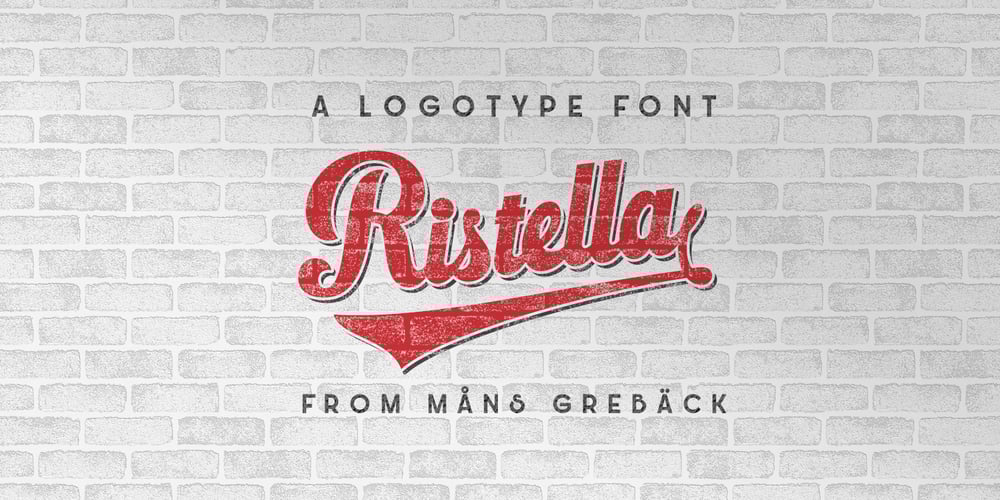
Ristella Font Family was designed by Måns Grebäck and published by Mans Greback. Ristella contains 1 styles and family package options. Ristella – a logotype script font. This high-quality typeface is created by Måns Grebäck. Its style is bold and has large, attention-grabbing uppercase letters. Ristella contains alternate and stylistic alternates, as well as multiple ligatures. With its hundreds of glyphs it also has support for a wide range of languages. How do you make a swash? Combine an ending and a tail to make a swash. Endings are found in the following symbols: [ ] { } Tails are found in the following symbols: < > § _ ¤ Example: Ristella}> With ligatures activated, write multiple tail symbols to make a longer swash. Example: Tailextender]¤¤¤